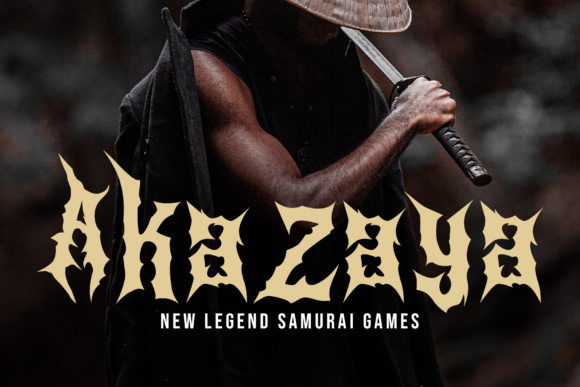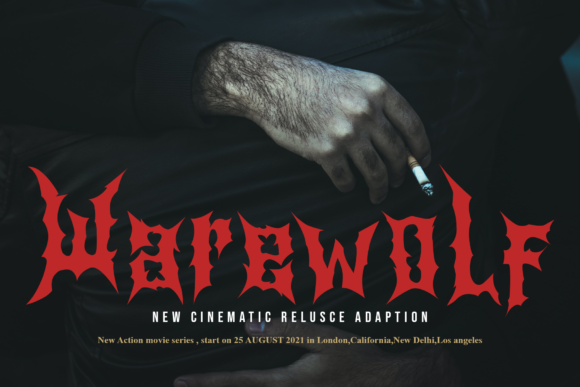
Unleash the Dark Side of Typography with Blackthorn Font
In the world of typography, blackletter fonts have always been a popular choice for designers and crafters looking to add a touch of elegance and mystery to their projects. One such font that has been making waves in the design community is Blackthorn, a modern and scary blackletter font created by Kong Font Studio. In this article, we’ll take a closer look at what makes Blackthorn a must-have for designers and crafters, and how it can elevate your projects to the next level.
What is Blackthorn Font?
Blackthorn is a modern blackletter font that boasts a unique and intimidating design. Its sleek and bold lines make it perfect for creating eye-catching titles, headings, and text-based designs. Whether you’re working on a DIY project, a logo design, or a crafting pattern, Blackthorn is sure to add a touch of sophistication and drama to your work.
Features of Blackthorn Font
- Modern and Scary Design: Blackthorn’s unique design is sure to grab attention and add a touch of edginess to your projects.
- Crafted with Precision: Created by Kong Font Studio, Blackthorn is a high-quality font that is designed to deliver crisp and clear results.
Tips and Tricks for Using Blackthorn
- Pair with contrasting fonts: Blackthorn’s bold design makes it perfect for pairing with lighter, more elegant fonts.
- Experiment with colors: Blackthorn looks great in bold colors, but also try using it in metallic or pastel shades for a unique look.
- Use for headlines and titles: Blackthorn’s bold design makes it perfect for headlines and titles, but also try using it for body text for a more dramatic look.